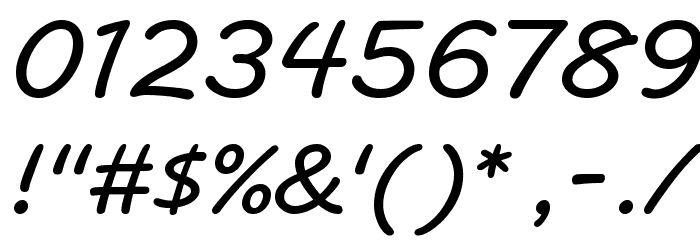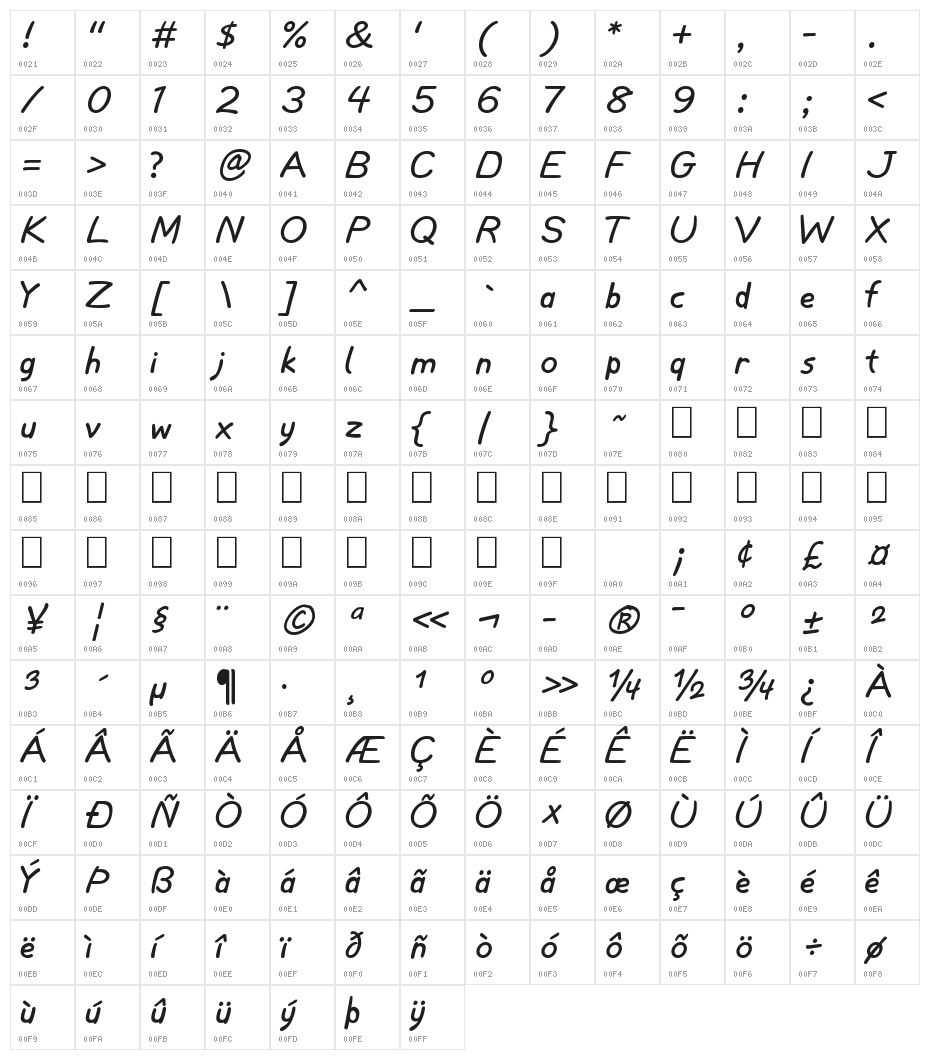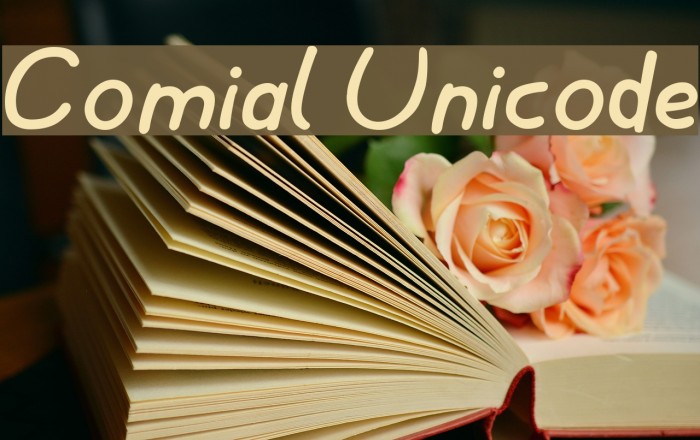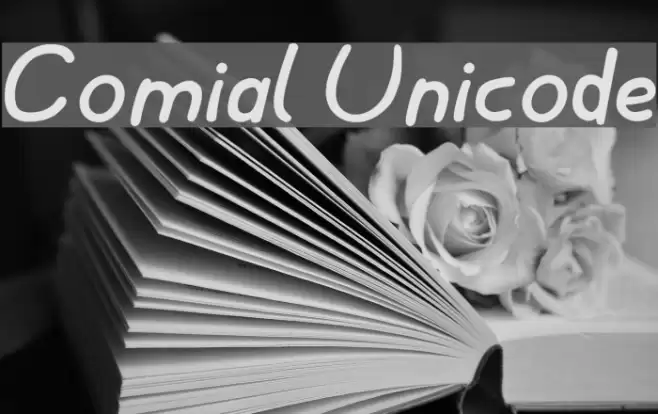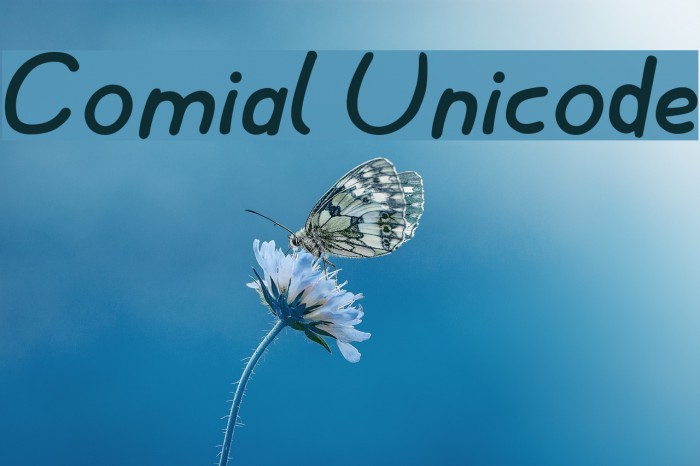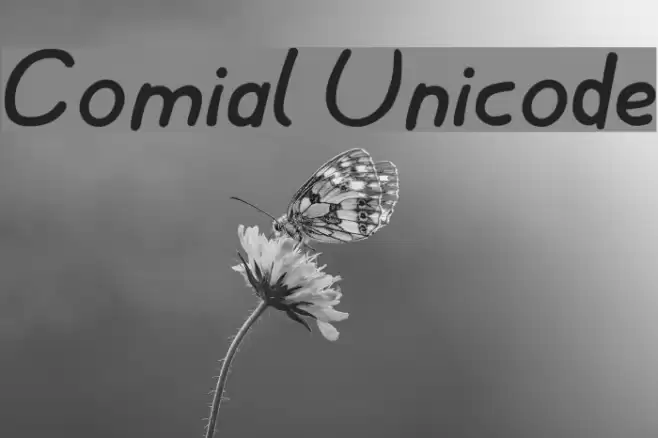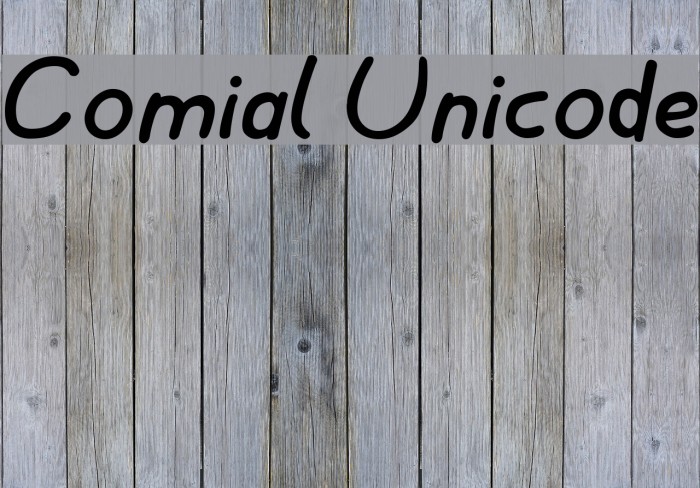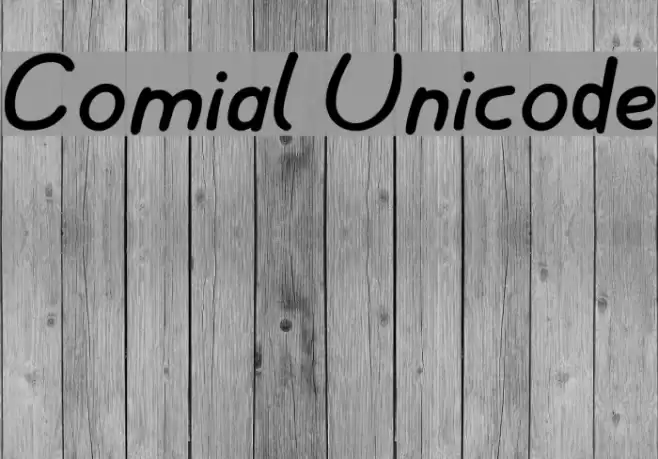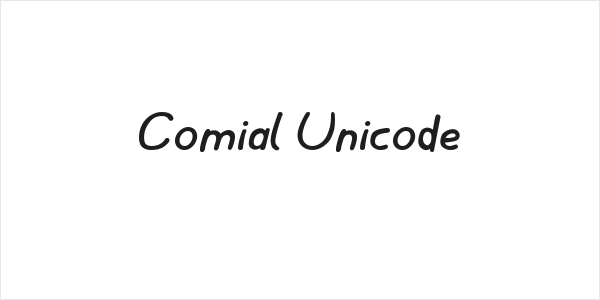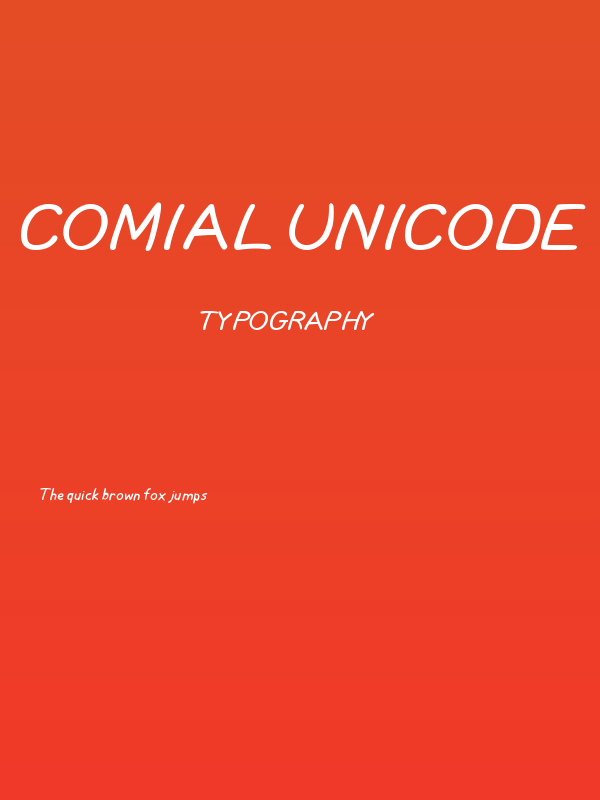
Comial Unicode Font
Comial Unicode Description
This font features a playful and casual handwritten style, characterized by its smooth, flowing curves and slightly slanted orientation. The uppercase letters maintain a consistent height, while the lowercase letters exhibit a friendly, approachable appearance with rounded edges. The numerals are clear and legible, matching the overall style of the alphabet. Special characters are well-integrated, maintaining the font's cohesive look. The font's informal nature makes it suitable for projects that require a personal touch or a relaxed vibe.
| Proposed Projects | Ideal for greeting cards, personal invitations, children's books, and informal branding. |